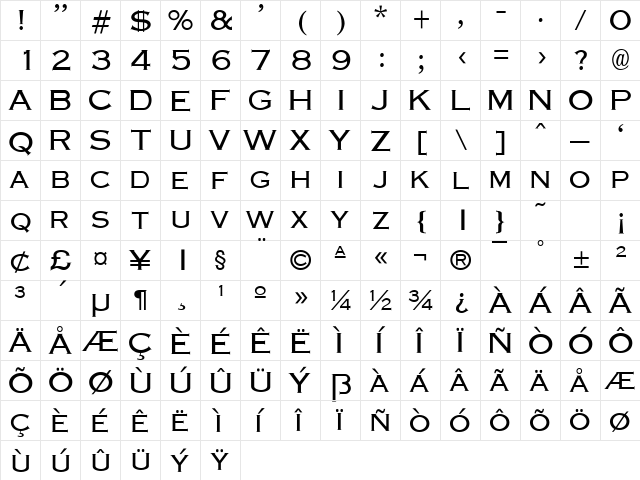
CopperPlate Normal Font Preview
CopperPlate Normal
Design Context for CopperPlate Typeface
CopperPlate is a composed and adaptable typeface that performs quietly and consistently across a wide range of design contexts.